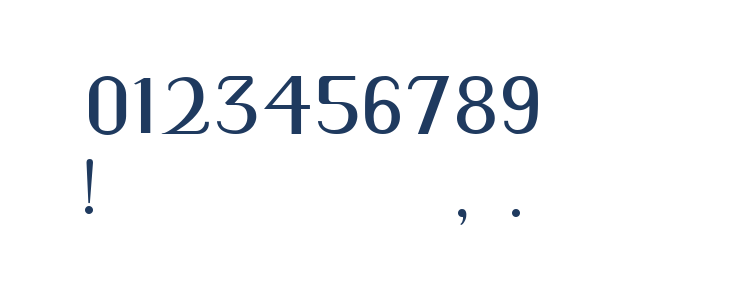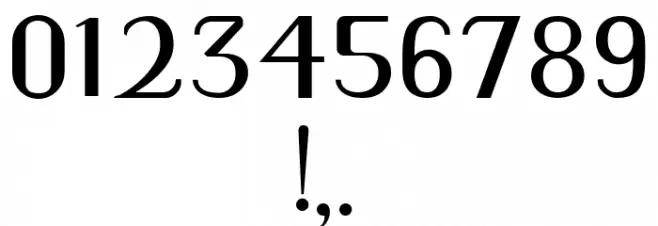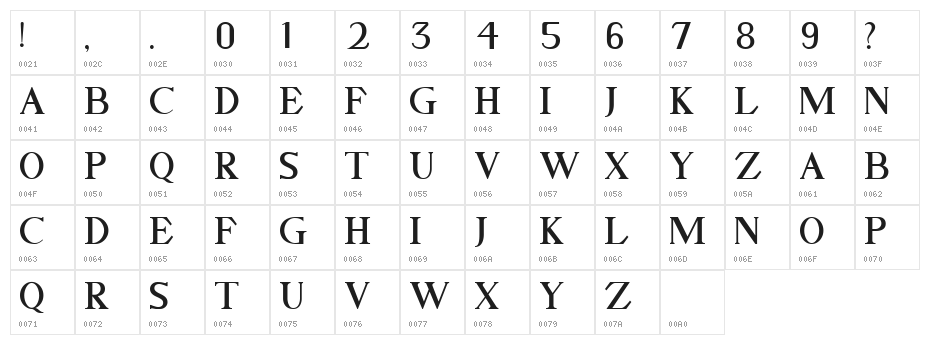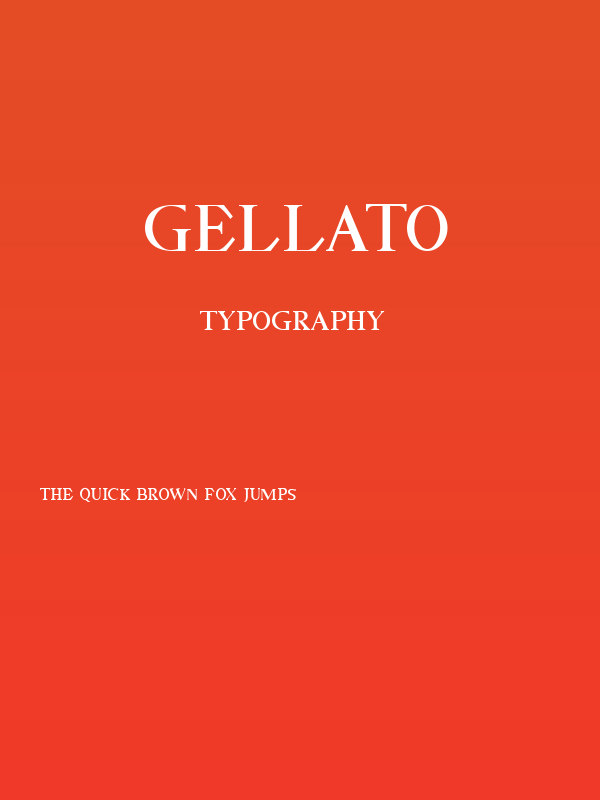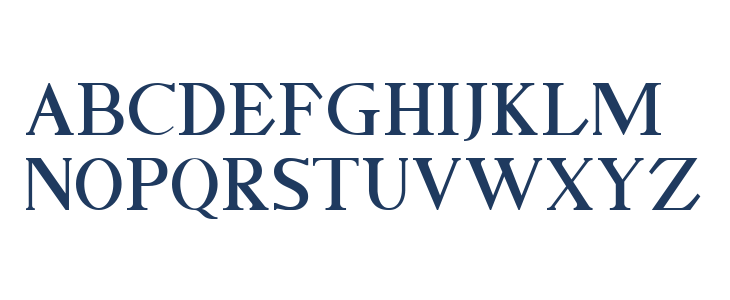
GELLATO Font
GELLATO Description
This font features a classic serif style with elegant and refined strokes. The uppercase letters are characterized by their strong vertical lines and subtle curves, giving them a timeless and sophisticated appearance. The lowercase letters maintain a consistent style, complementing the uppercase with their balanced proportions and smooth transitions. The numerals are clear and legible, designed with a modern touch that ensures readability. Special characters are crafted with attention to detail, maintaining the overall aesthetic of the font. This typeface is versatile, suitable for both formal and creative applications.
CategoriesSerif
Overall StyleClassic
Use CaseHeadlines, Body text, Logos
Proposed ProjectsIdeal for editorial design, book covers, branding, and formal invitations.